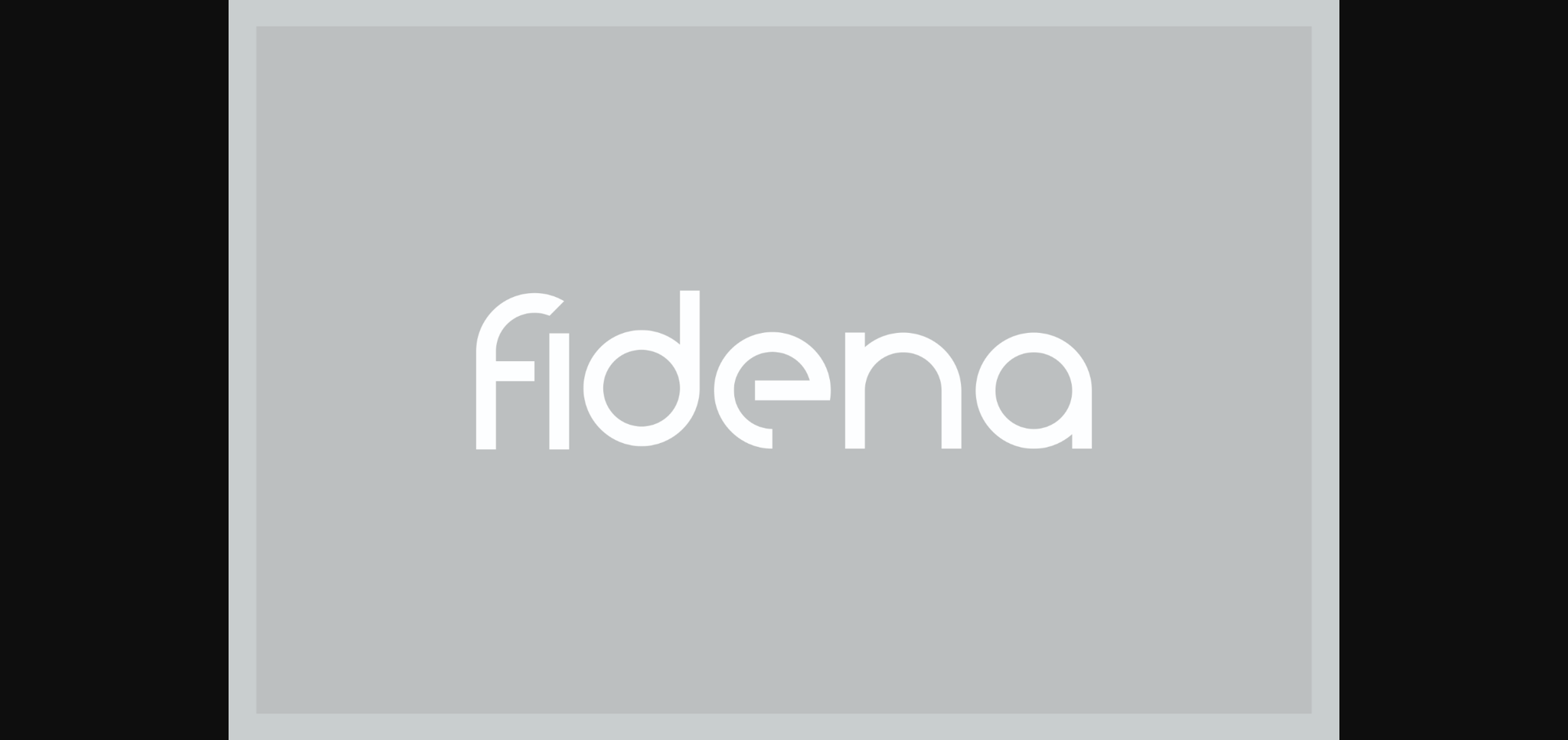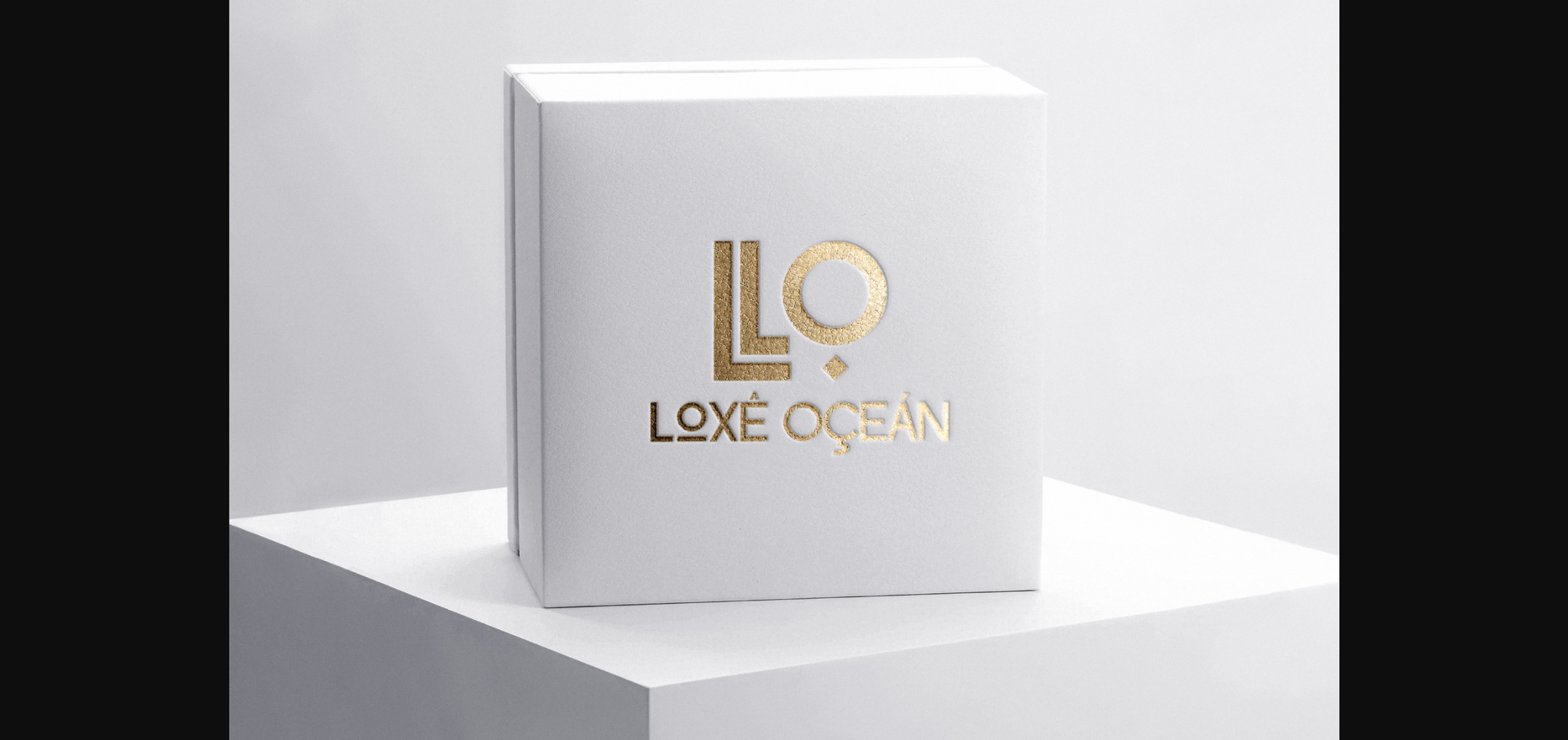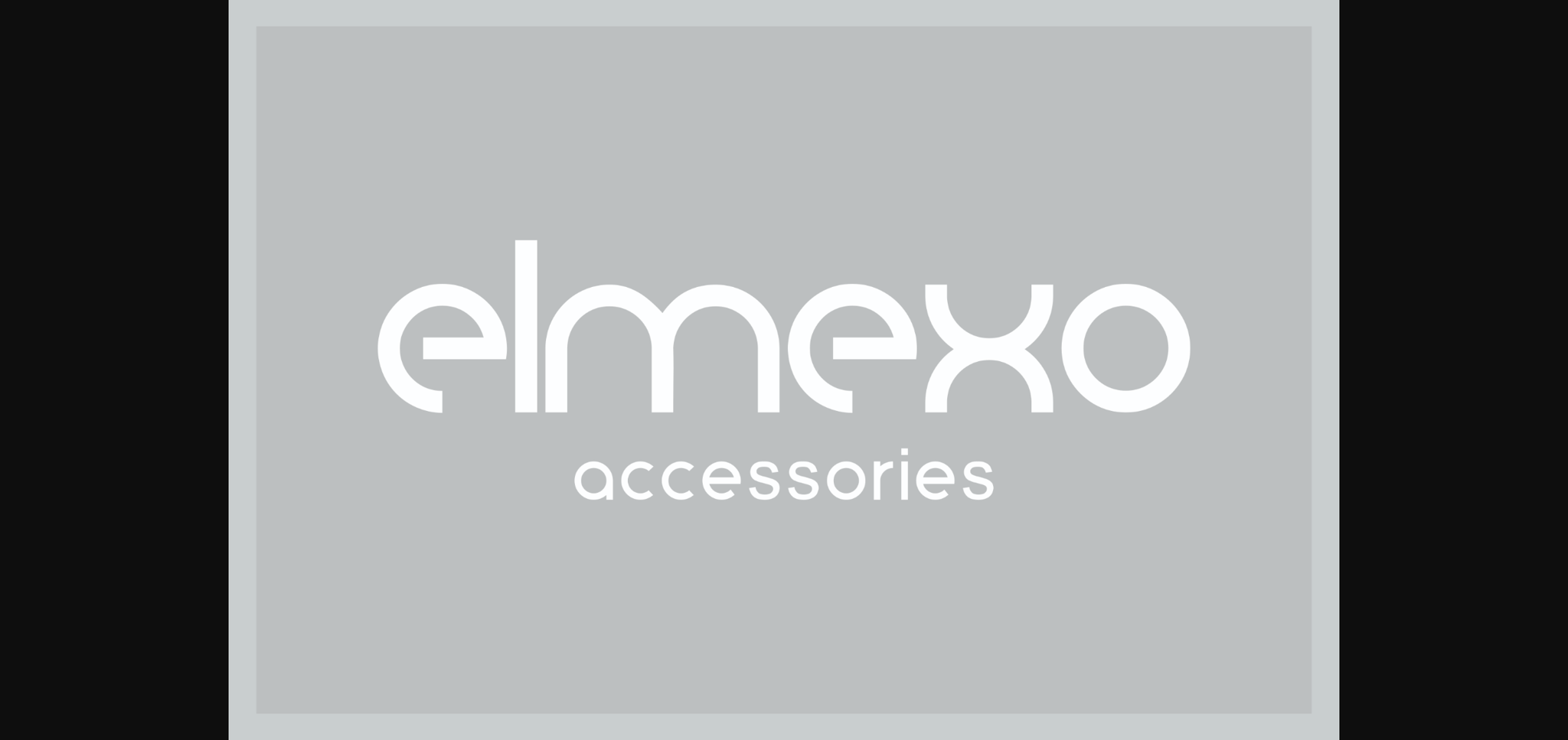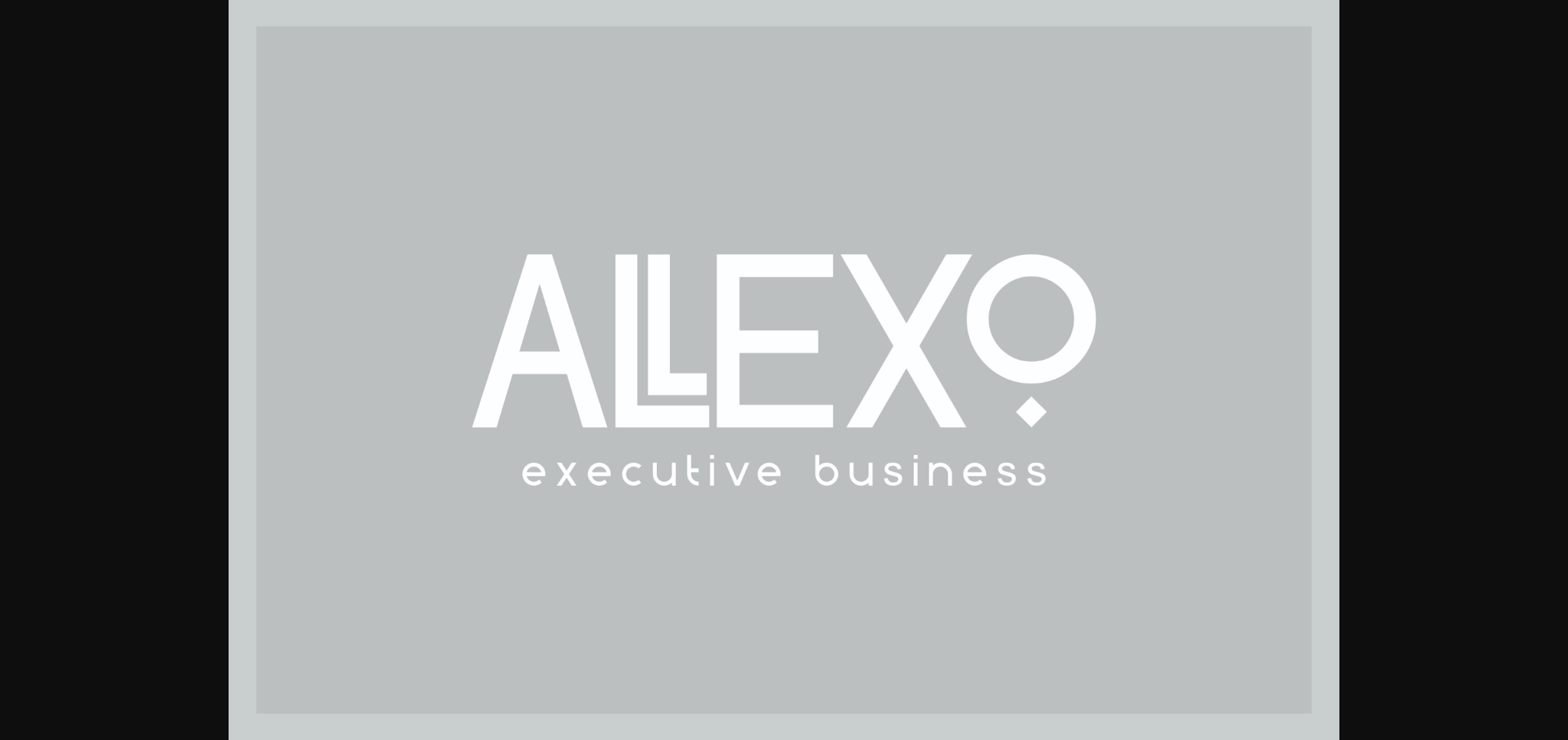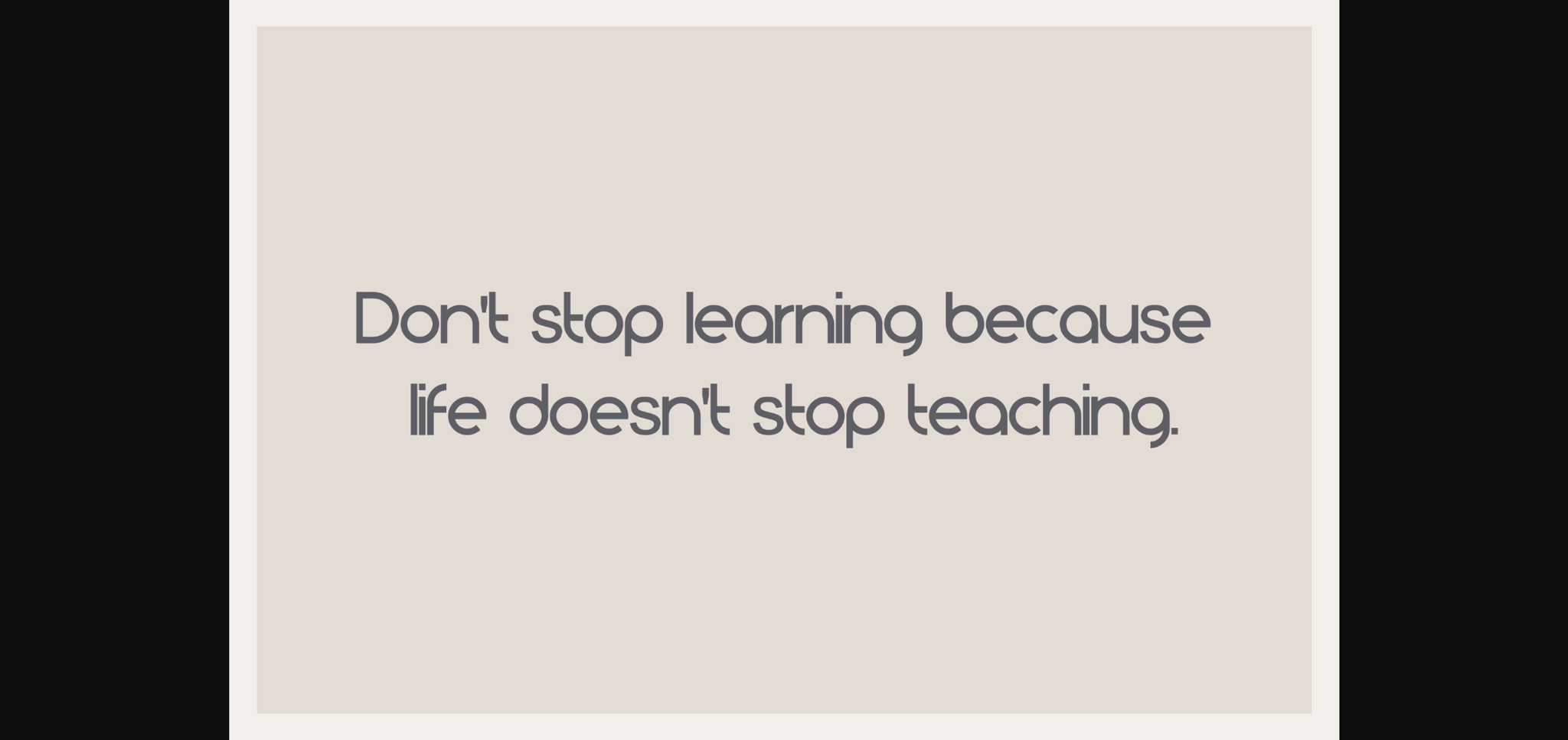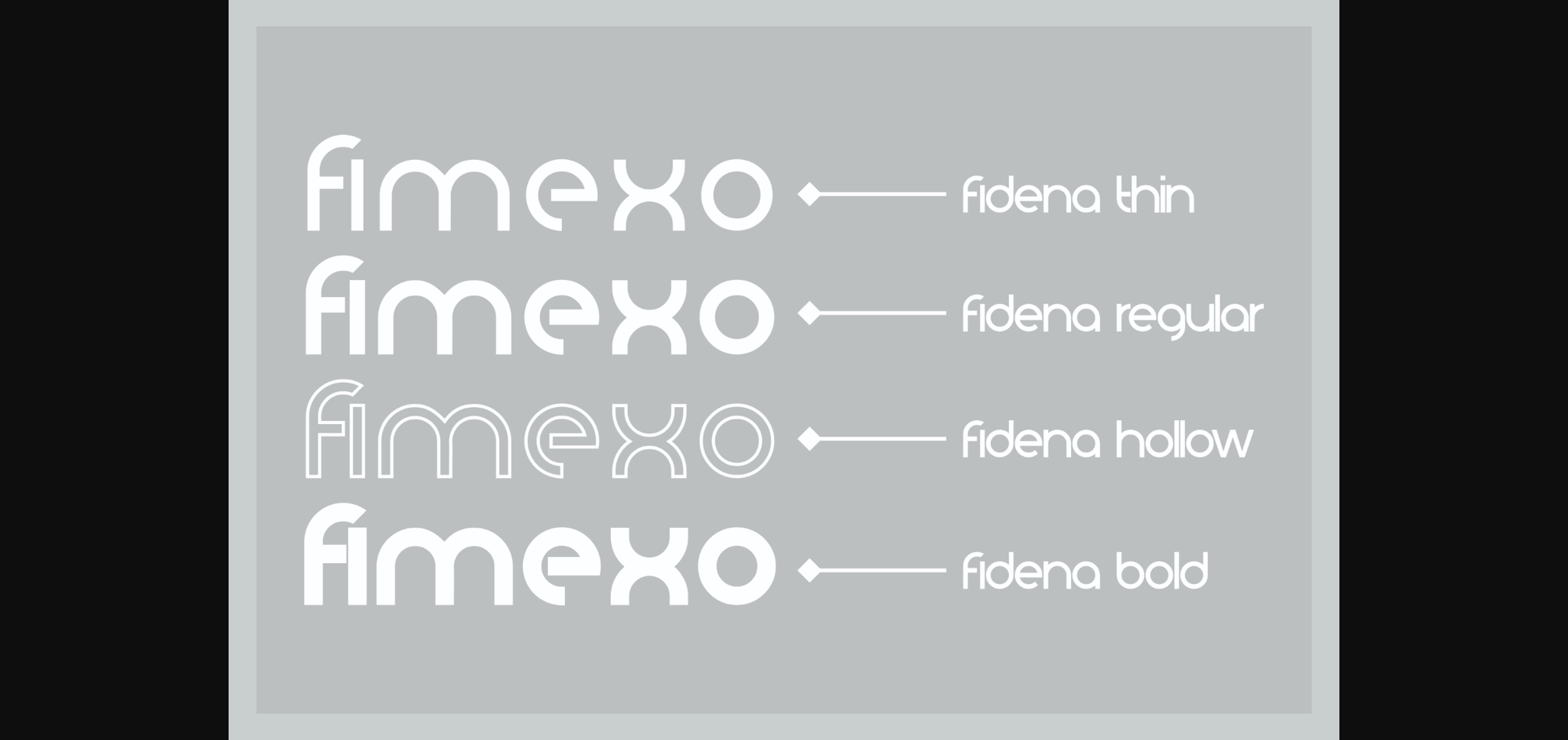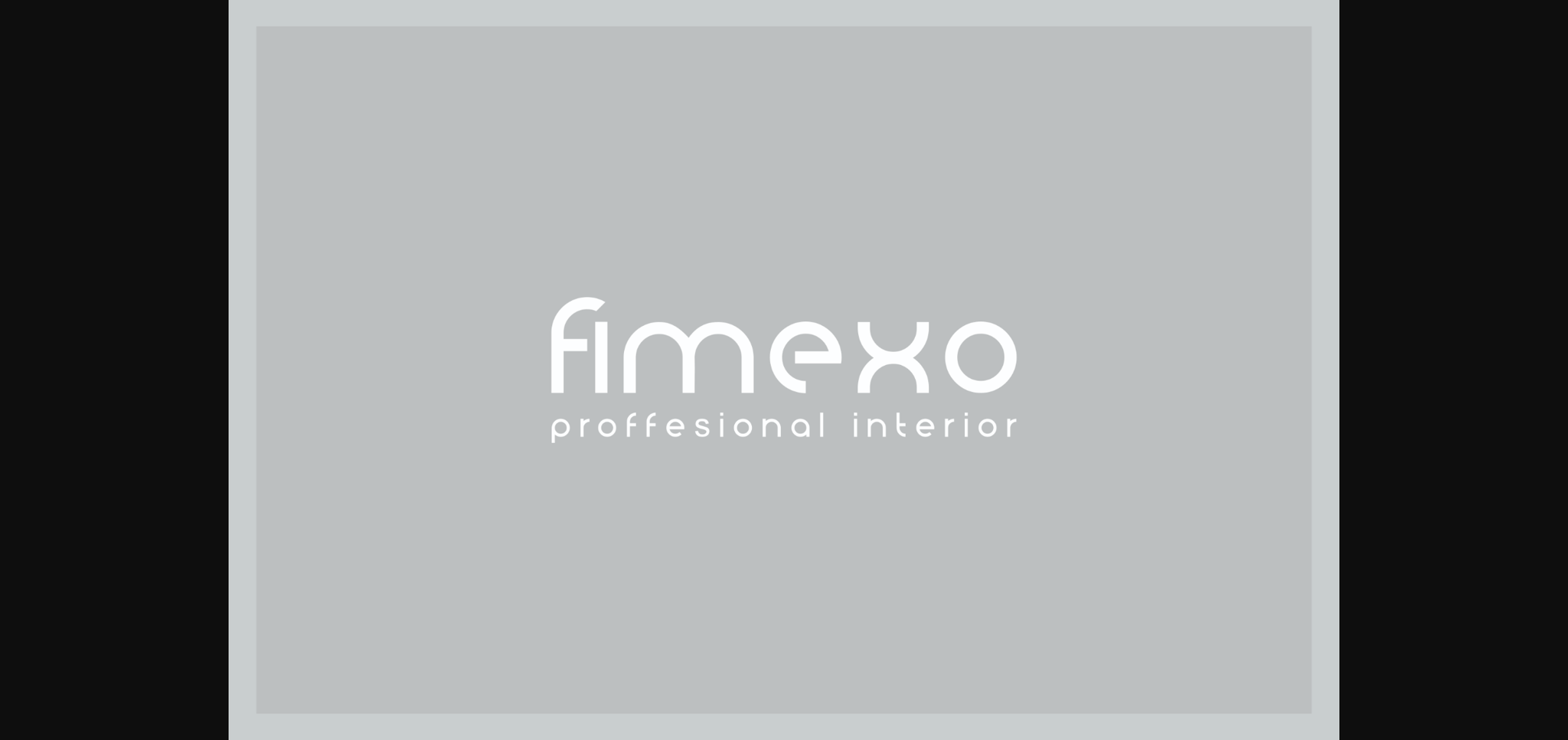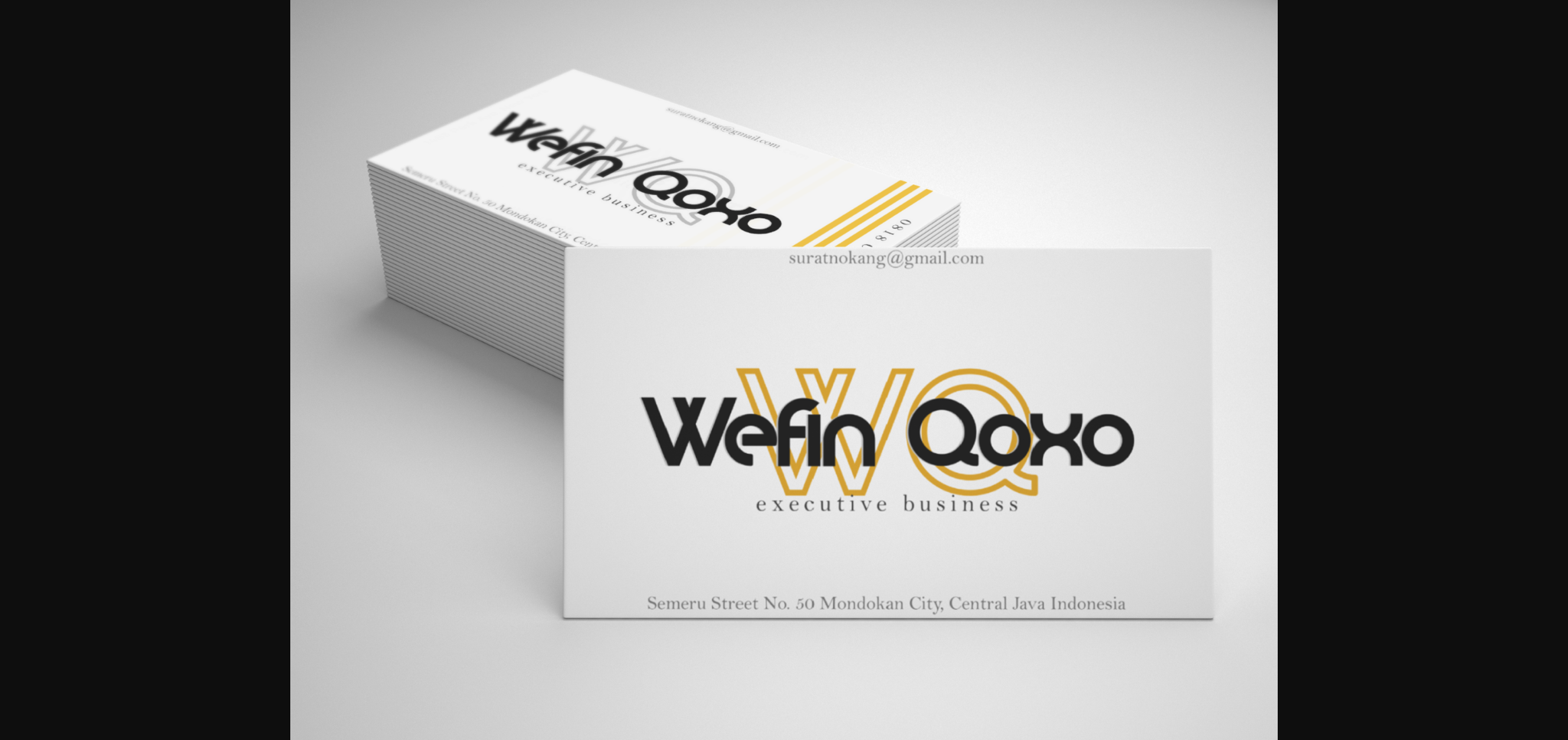
Fidena Font
About Fidena Font
Fidena is an elegant sans serif font. Suitable for a variety of designs because of its neat and simple style, Fidena has the potential to become your favorite font of choice, whatever the occasion!
Fidena includes four extraordinary weights – regular, hollow, bold and thin! Combining them will give a sophisticated look to your designs.